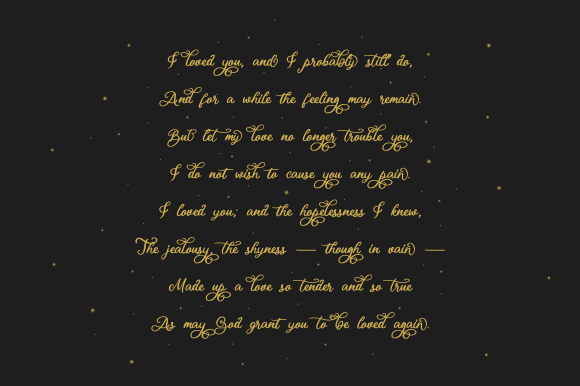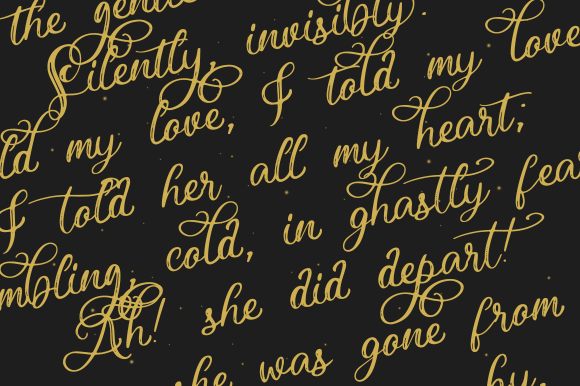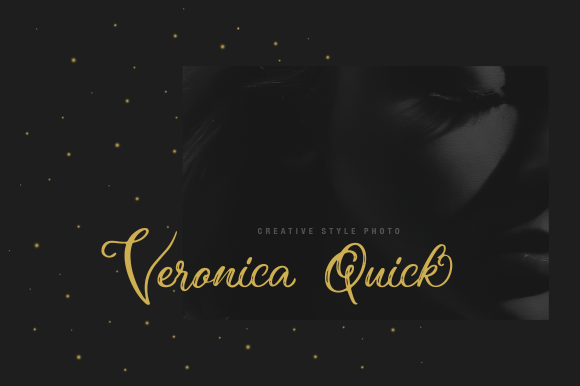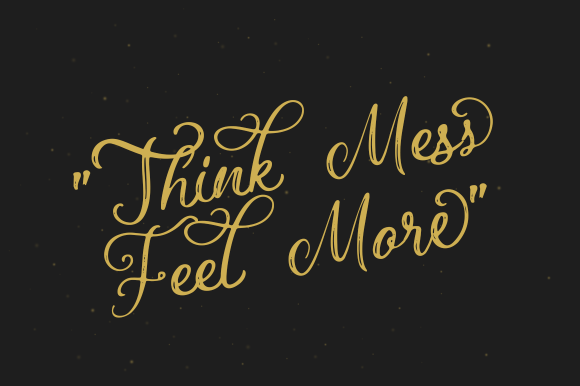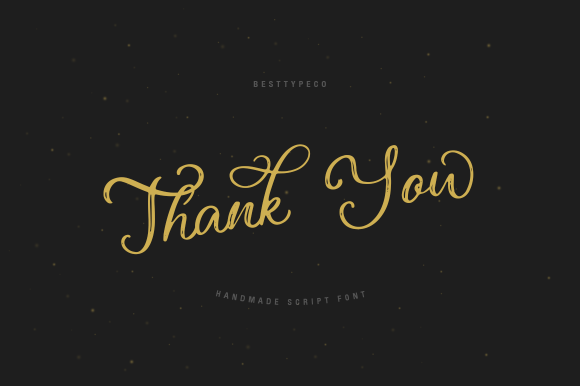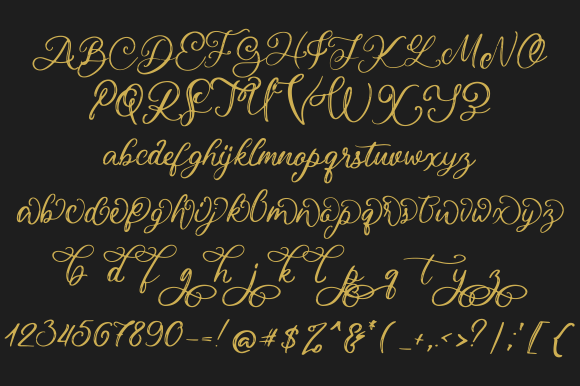
Royality Font
About Royality Font
Royality is a stylish and delicate script font. It has a clean, thin and smooth vibe and it will be a hit for any design that you want to add it to. This font is PUA encoded which means you can access all of the glyphs and swashes with ease!